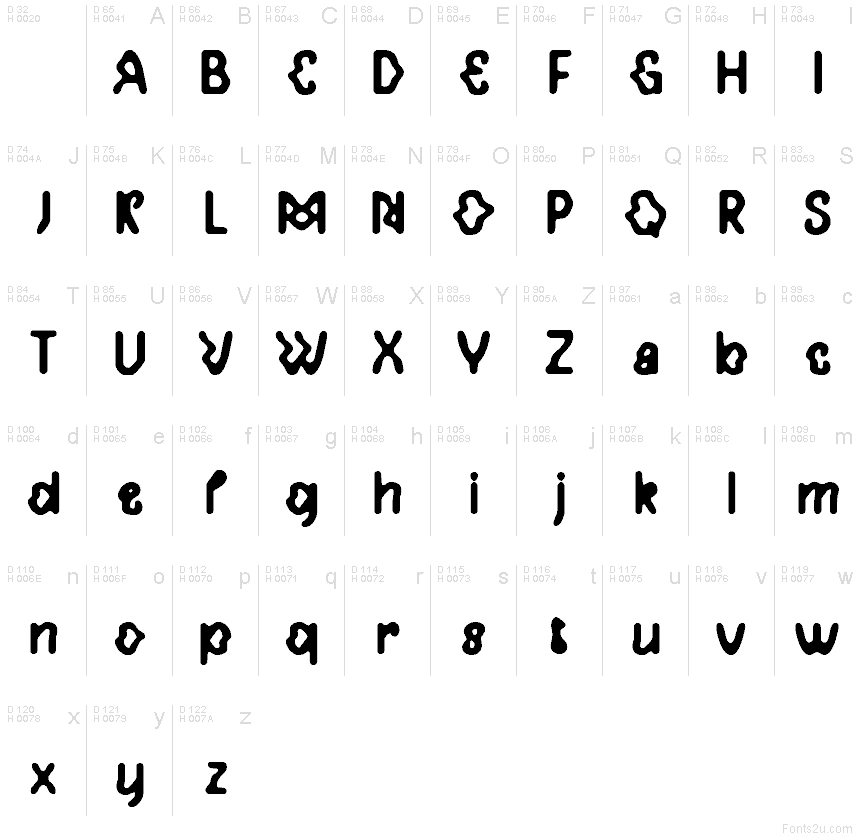
CSShermanDrawn-Regular Demo
CS Sherman Drawn font by Craft Supply Co. is a free distorted display font built around blobby, hand-drawn strokes that swell and slim as if nudged by wet ink. Letters wobble with a friendly baseline bounce, soft edges, and roomy counters, creating a chunky rhythm that stays readable while feeling wonderfully off-kilter. As part of the CS Sherman family, it leans into an organic, inky texture that turns simple words into tactile, standout marks.
Using CS Sherman Drawn, headlines instantly gain personality without slipping into chaos. It shines on indie posters, playful packaging, festival merch, cafe menus, sticker sheets, social posts, and event flyers. This free font likes big sizes and tight word spacing for maximum squish-and-pop impact; pair with a clean geometric sans to let the texture do the talking.